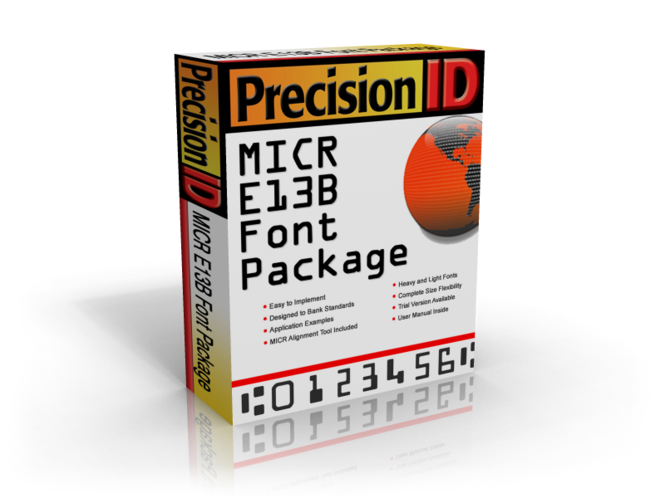
PrecisionID MICR E13B Fonts Description
This MICR font package contains one multi-purpose MICR E-13B font and 10 additional variations of this font which include light, bold, wide and narrow versions. All of these fonts are provided in both TrueType and PostScript format. We also provide placement instructions and a MICR calibration tool, which can be used to determine if you need to implement one of the variations of this font. A setup file is supplied to ease installation.